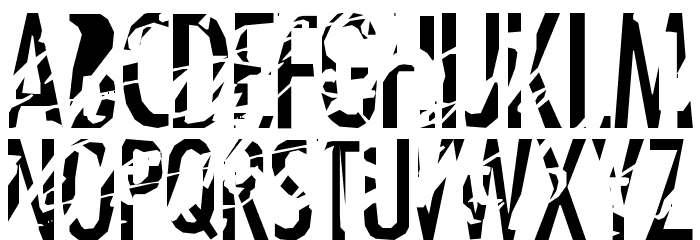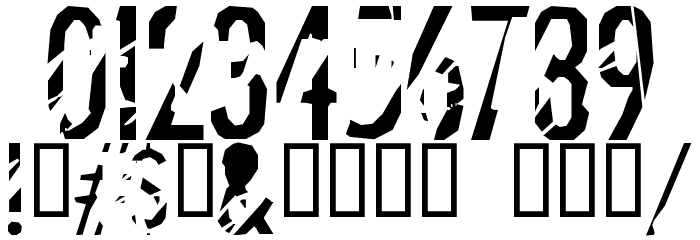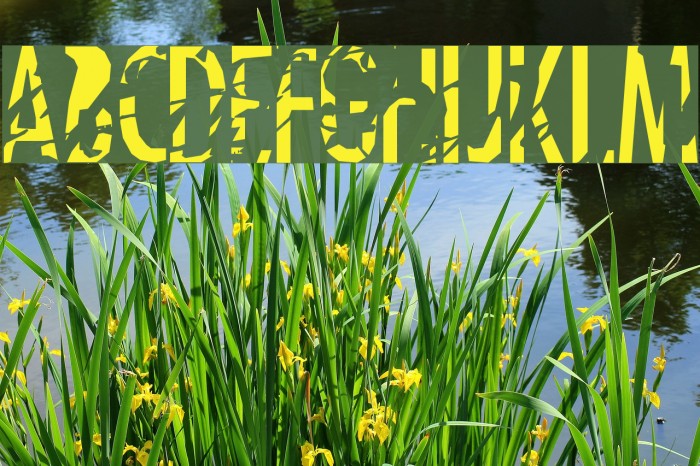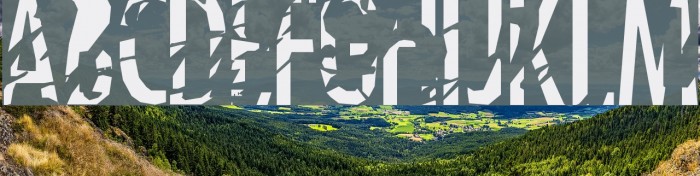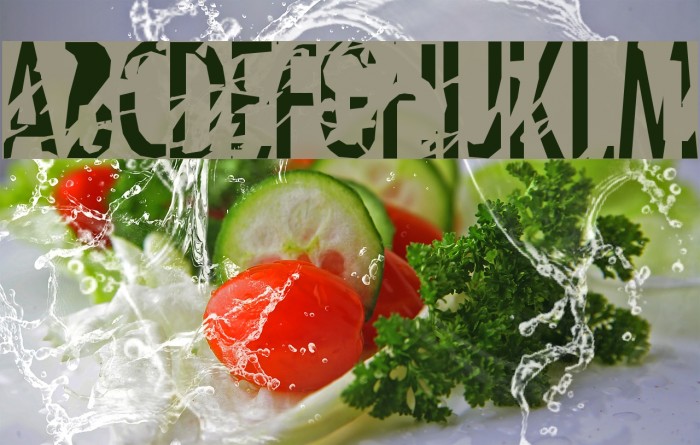
Tanline Font
This font features a bold, geometric design with a unique distressed effect that gives it a rugged, textured appearance. The characters are constructed with sharp angles and clean lines, creating a modern and edgy look. The distressed pattern within each letter adds a sense of depth and complexity, making it stand out in any design. This font is highly stylized, with a strong emphasis on visual impact, making it ideal for projects that require a bold statement. The uppercase and lowercase letters maintain a consistent style, while the numbers and special characters complement the overall aesthetic.
A bold, geometric font with a unique distressed effect for a modern, edgy look.
- Proposed Projects: Ideal for branding, posters, album covers, and any design requiring a bold, impactful statement.